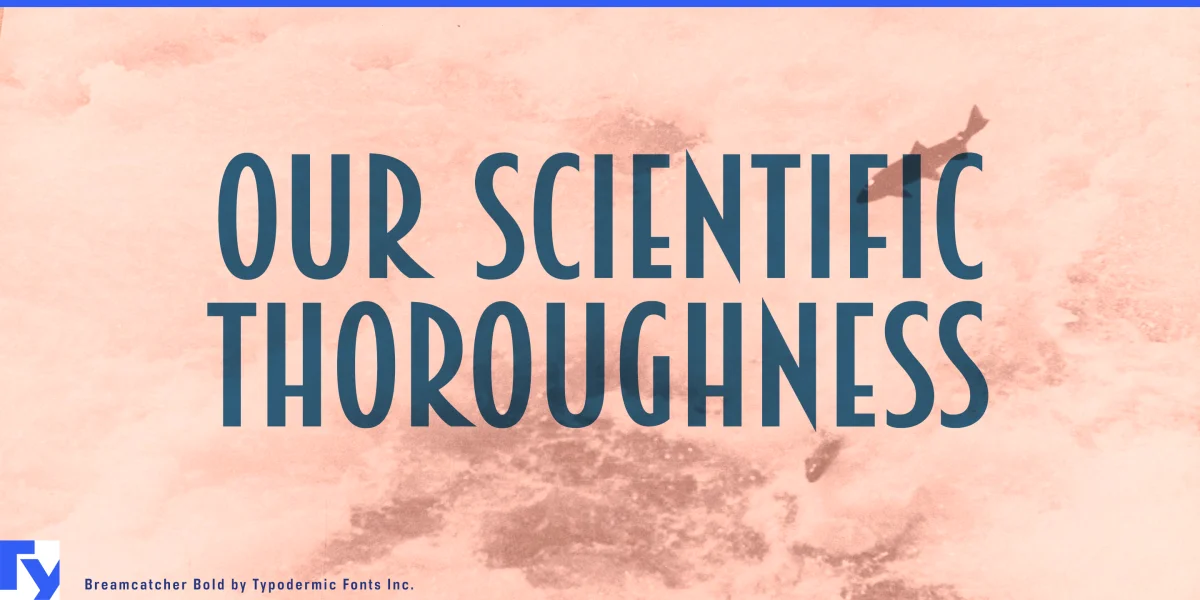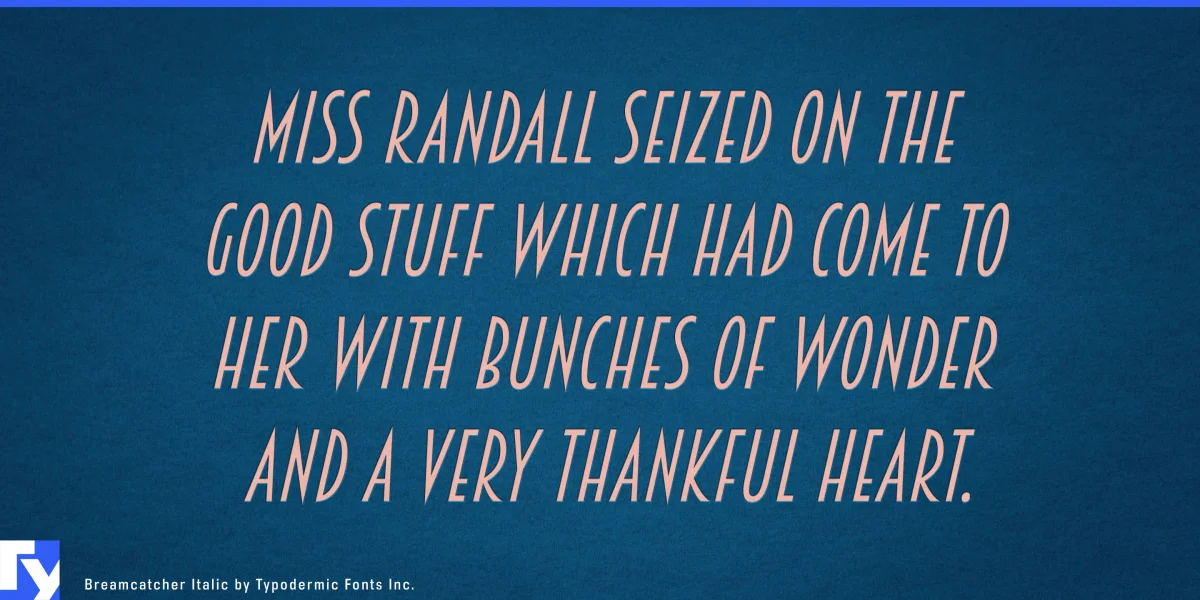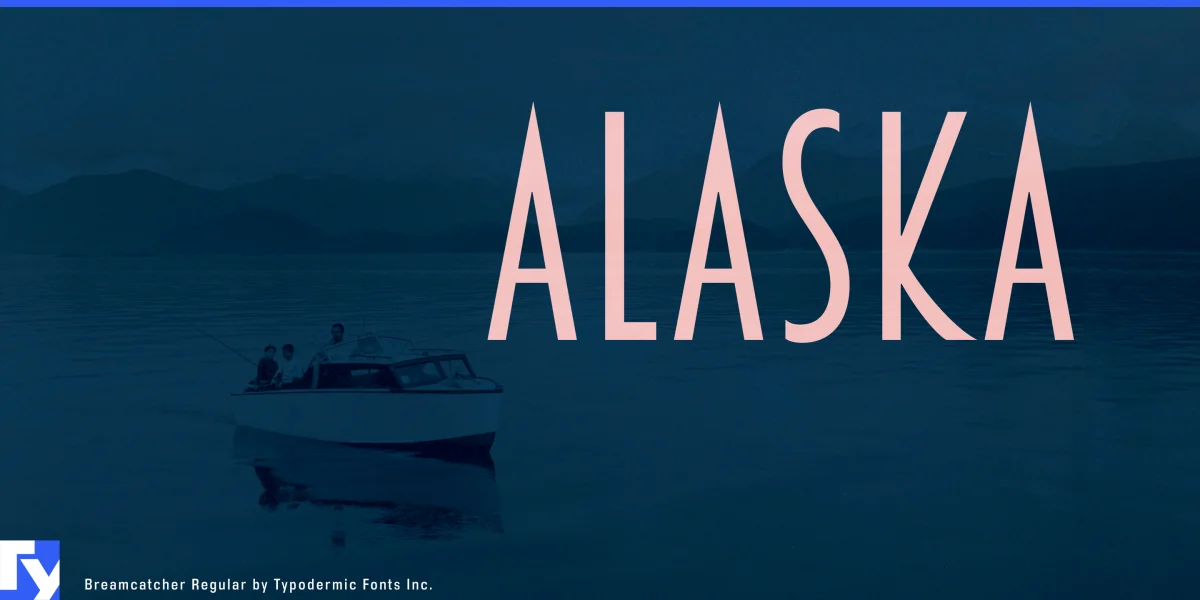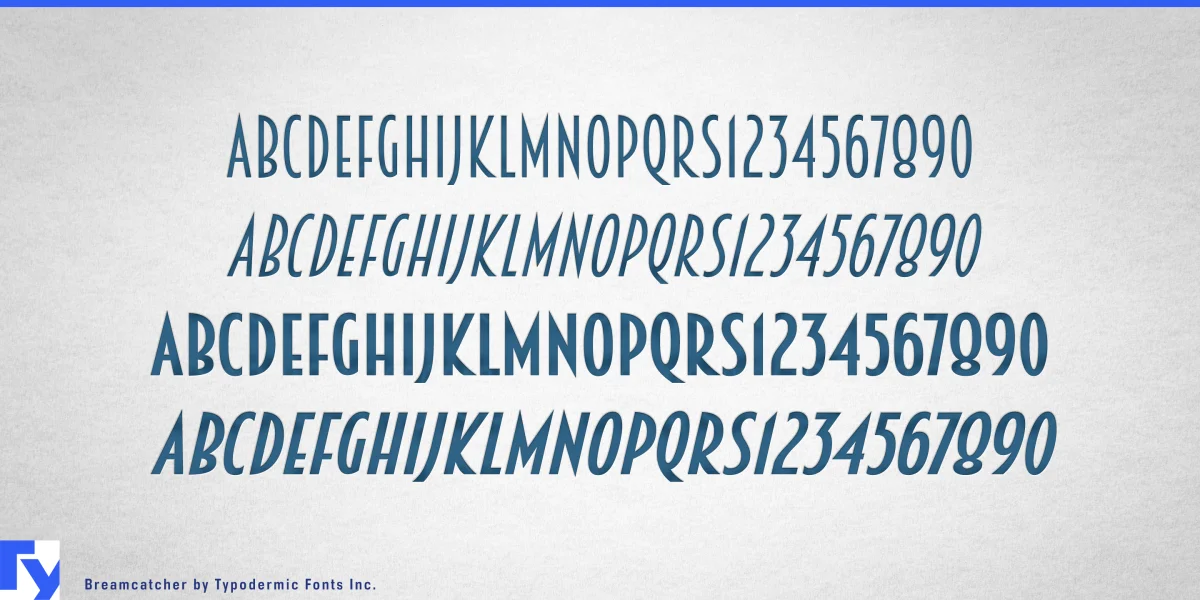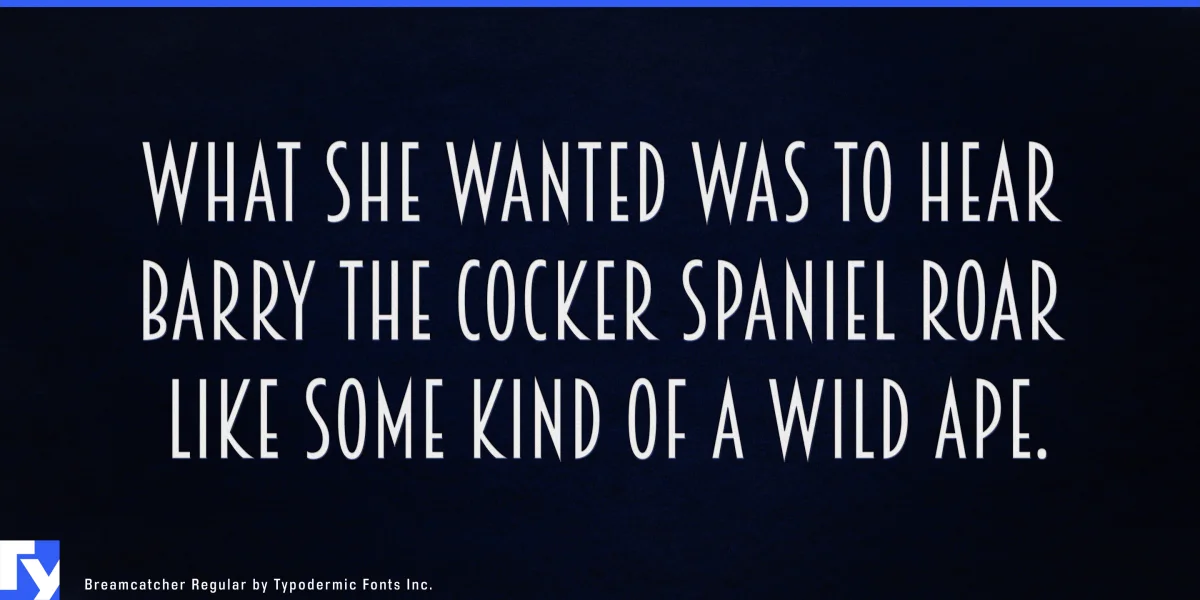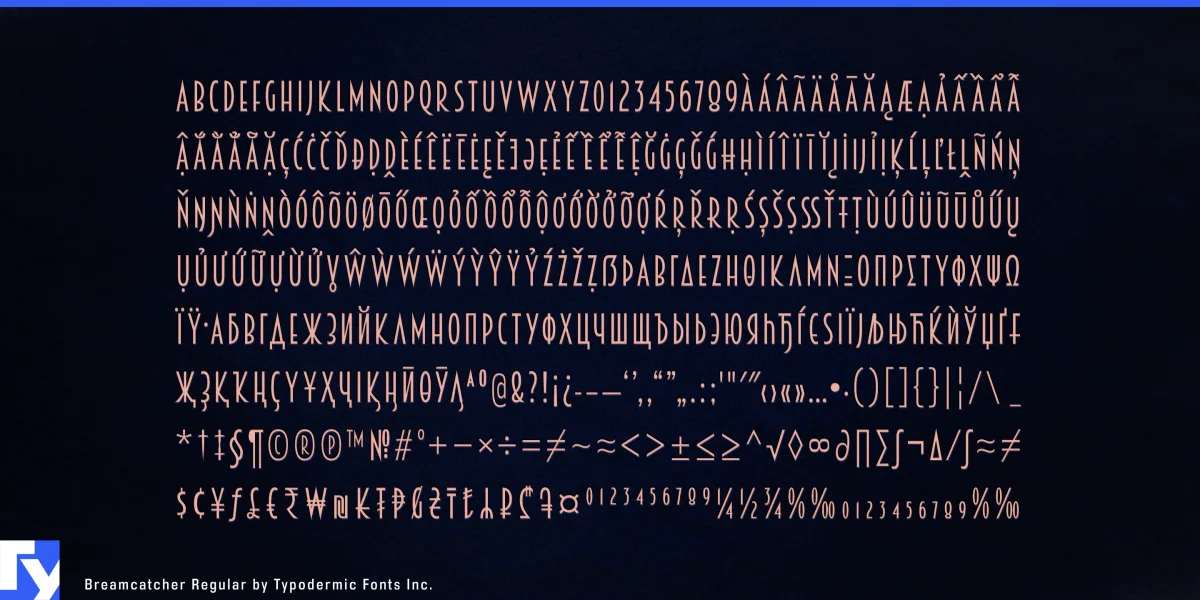
Breamcatcher is a svelte, Art Deco typeface inspired by the piano sheet music for “With Every Breath I Take” which was featured in the Bing Crosby/Kitty Carlisle musical comedy film, “Here is my Heart” in 1934. Compact sans-serif typefaces can look salient, but Breamcatcher is a slow jam. Loose spacing and lazy strokes will give your message a breezy, reassuring voice—and a spritz of romance. OpenType fractions, numeric ordinals and lots of currency symbols are included. Breamcatcher is available in Regular, Italic and Bold-Italic styles. Most Latin-based European, Vietnamese, Greek, and most Cyrillic-based writing systems are supported, including the following languages. Afaan Oromo, Afar, Afrikaans, Albanian, Alsatian, Aromanian, Aymara, Azerbaijani, Bashkir, Bashkir (Latin), Basque, Belarusian, Belarusian (Latin), Bemba, Bikol, Bosnian, Breton, Bulgarian, Buryat, Cape Verdean, Creole, Catalan, Cebuano, Chamorro, Chavacano, Chichewa, Crimean Tatar (Latin), Croatian, Czech, Danish, Dawan, Dholuo, Dungan, Dutch, English, Estonian, Faroese, Fijian, Filipino, Finnish, French, Frisian, Friulian, Gagauz (Latin), Galician, Ganda, Genoese, German, Gikuyu, Greenlandic, Guadeloupean Creole, Haitian Creole, Hawaiian, Hiligaynon, Hungarian, Icelandic, Igbo, Ilocano, Indonesian, Irish, Italian, Jamaican, Kaingang, Khalkha, Kalmyk, Kanuri, Kaqchikel, Karakalpak (Latin), Kashubian, Kazakh, Kikongo, Kinyarwanda, Kirundi, Komi-Permyak, Kurdish, Kurdish (Latin), Kyrgyz, Latvian, Lithuanian, Lombard, Low Saxon, Luxembourgish, Maasai, Macedonian, Makhuwa, Malay, Maltese, Māori, Moldovan, Montenegrin, Nahuatl, Ndebele, Neapolitan, Norwegian, Novial, Occitan, Ossetian (Latin), Papiamento, Piedmontese, Polish, Portuguese, Quechua, Rarotongan, Romanian, Romansh, Russian, Rusyn, Sami, Sango, Saramaccan, Sardinian, Scottish Gaelic, Serbian, Serbian (Latin), Shona, Sicilian, Silesian, Slovak, Slovenian, Somali, Sorbian, Sotho, Spanish, Swahili, Swazi, Swedish, Tagalog, Tahitian, Tajik, Tatar, Tetum, Tongan, Tshiluba, Tsonga, Tswana, Tumbuka, Turkish, Turkmen (Latin), Tuvaluan, Ukrainian, Uzbek, Uzbek (Latin), Venda, Venetian, Vepsian, Vietnamese, Võro, Walloon, Waray-Waray, Wayuu, Welsh, Wolof, Xavante, Xhosa, Yapese, Zapotec, Zarma, Zazaki, Zulu and Zuni.